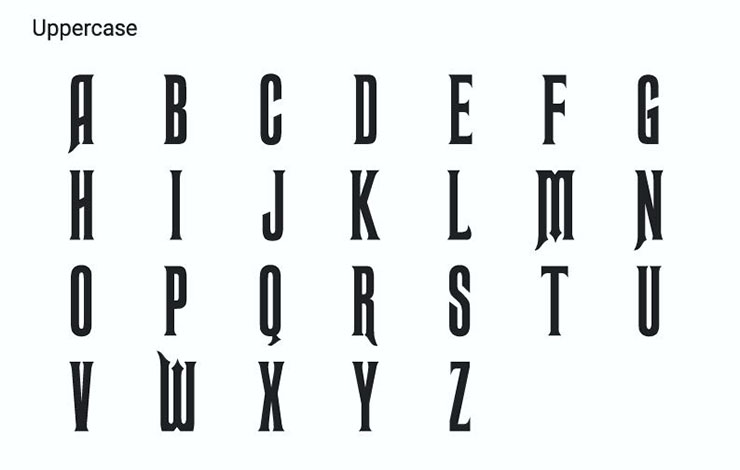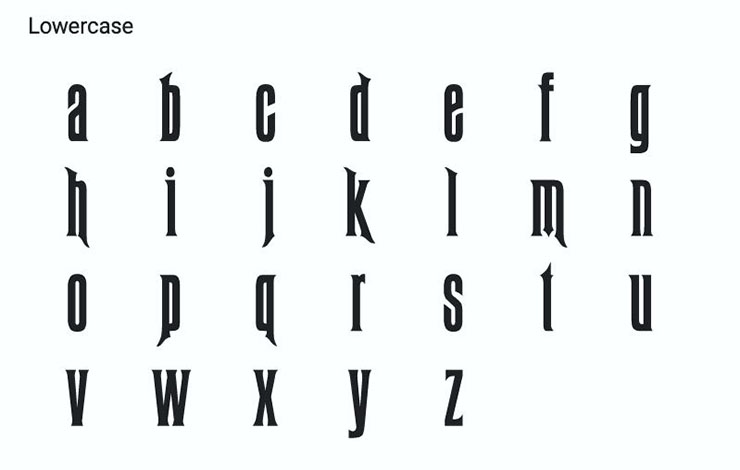
Introducing Haunted Mansion Font! It is a great gothic typeface that gives a modern feel to your design and is perfect for a variety of Halloween and horror-themed projects.
Basically, it is a logo typeface that we have seen for the first time in the Haunted Mansion title. It is an American horror comedy film based on the Disney theme park attraction of the same name.
It was released on 26 November 2003. It grossed $182.3 million on a very low budget of $90 million. That is why it is considered a successful film in the film industry.
The name of the Haunted Mansion font used in the movie’s title is similar to that of Ravenscroft. That was designed by Justin Callaghan.
What is Haunted Mansion Font?
The name of the Haunted Mansion font used in the movie’s title is similar to that of Ravenscroft. That was designed by Justin Callaghan.